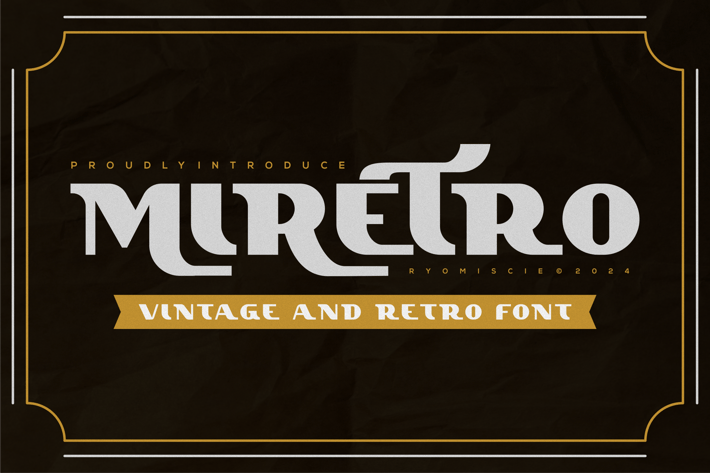
Miretro - Vintage And Retro Font
Introducing our new product Miretro Font - Vintage And Retro Font
Miretro Font - Modern Font is a bold and authentic display font. The font is suitable for any branding project like logo,
t-shirt printing, esport, and many more. outstanding in a wide range of contexts.
Miretro Uppercase
Miretro Lowercase
* Miretro Alternative